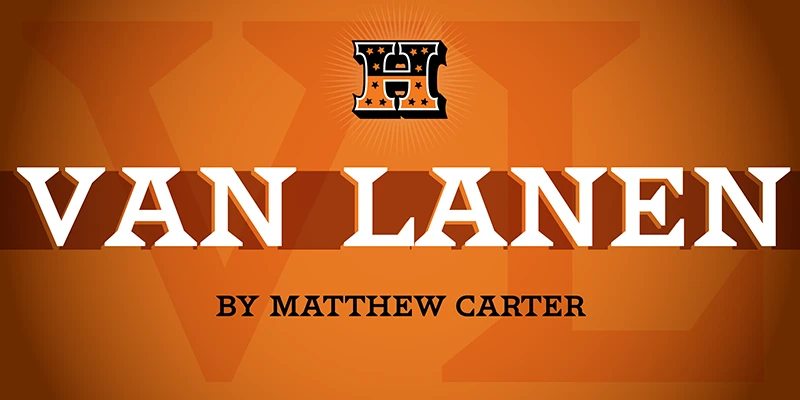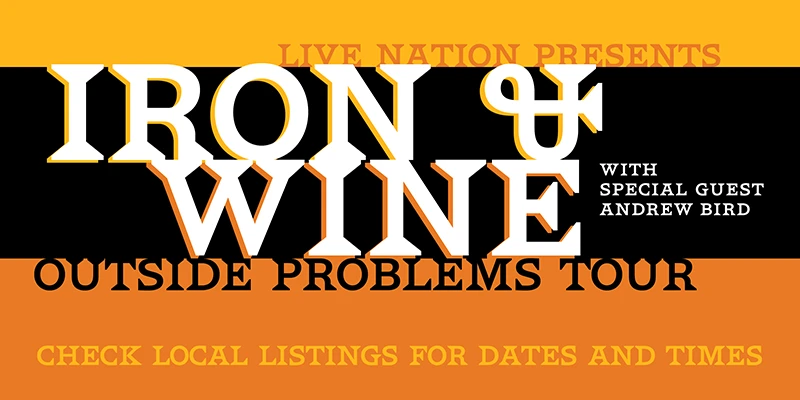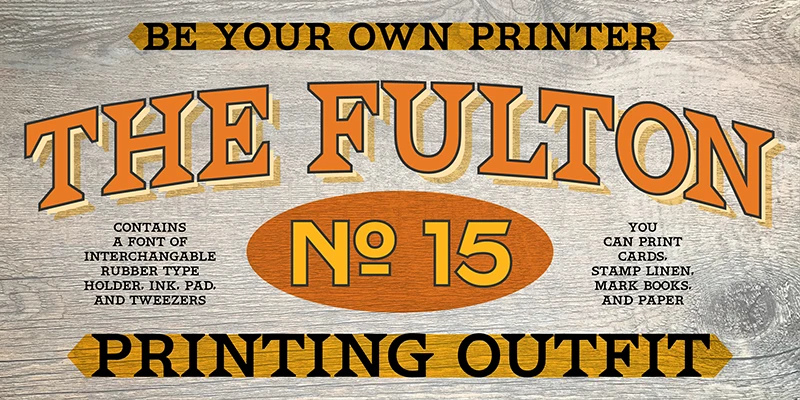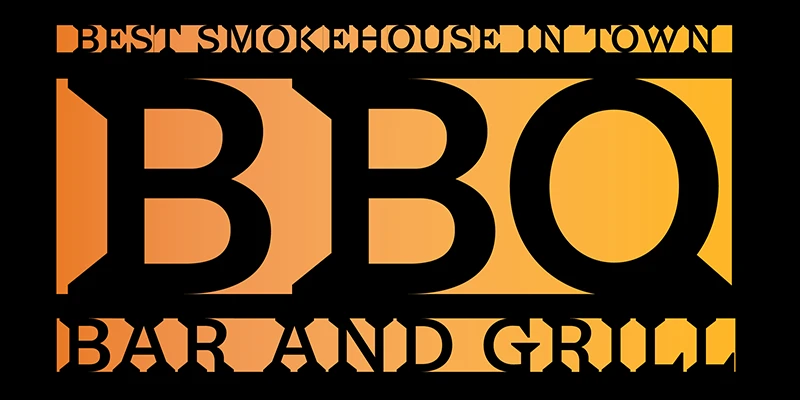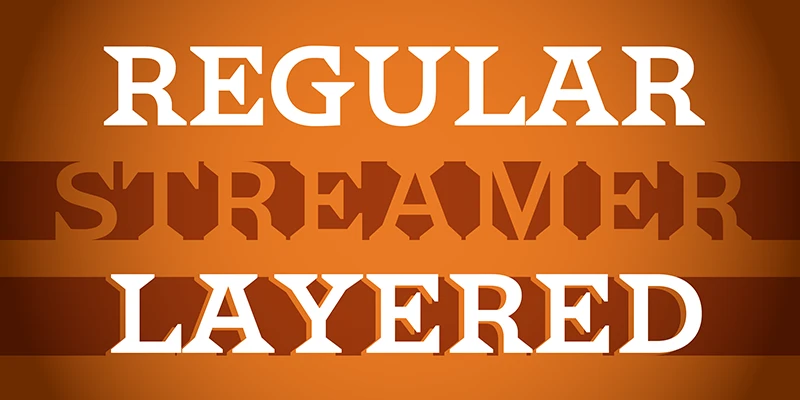
Sturdy triangular serifs yet light on its feet, HWT Van Lanen is a modern classic. Originally commissioned in 2002, it was Matthew Carter’s first foray into wood type production after a half-century of designing typefaces. With a low contrast, boxy design and inspiration from the interplay of positive and negative forms, Carter imagined how two versions might be used together. You can create chromatics by layering the two or stacking lines on top of each other to create lively blocks of text.
Designed by Matthew Carter